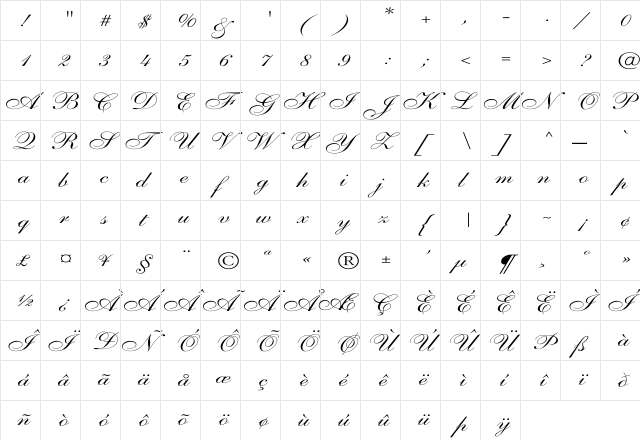
Shelley-AllegroScript Wd Regular
Shelley-AllegroScript Wd brings a calligraphic fluidity to the page — its connecting strokes and expressive curves give it an unmistakably human quality.
Font Pairing: Combine Shelley-AllegroScript Wd with a simple geometric sans for maximum contrast — the tension between flowing curves and clean structure is a classic typographic pairing.
Pro Tip: Use Shelley-AllegroScript Wd for short runs of text — names, titles, or taglines. Extended body copy in script faces tires the eye quickly.